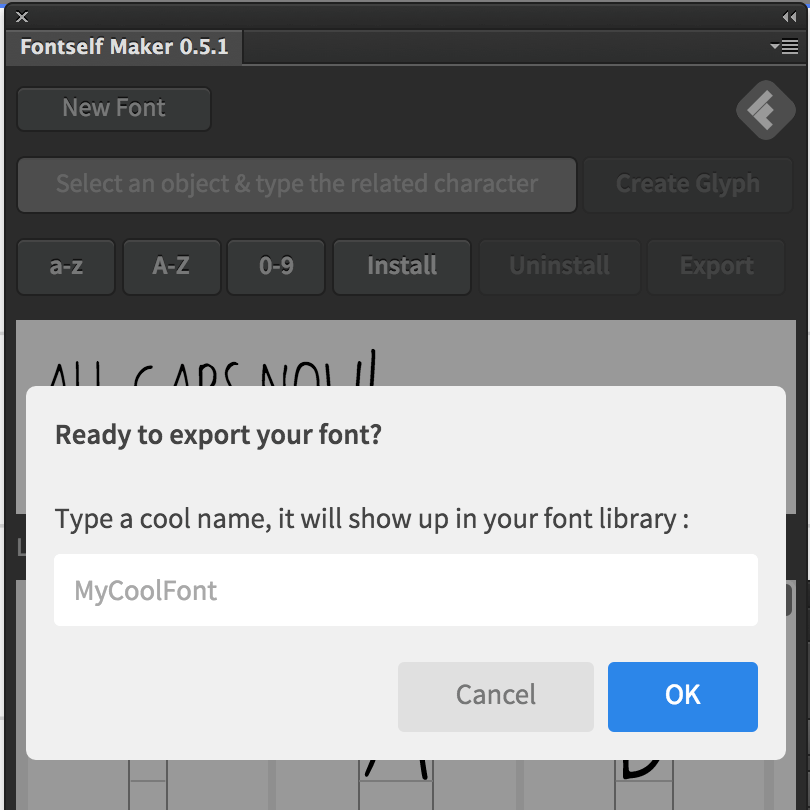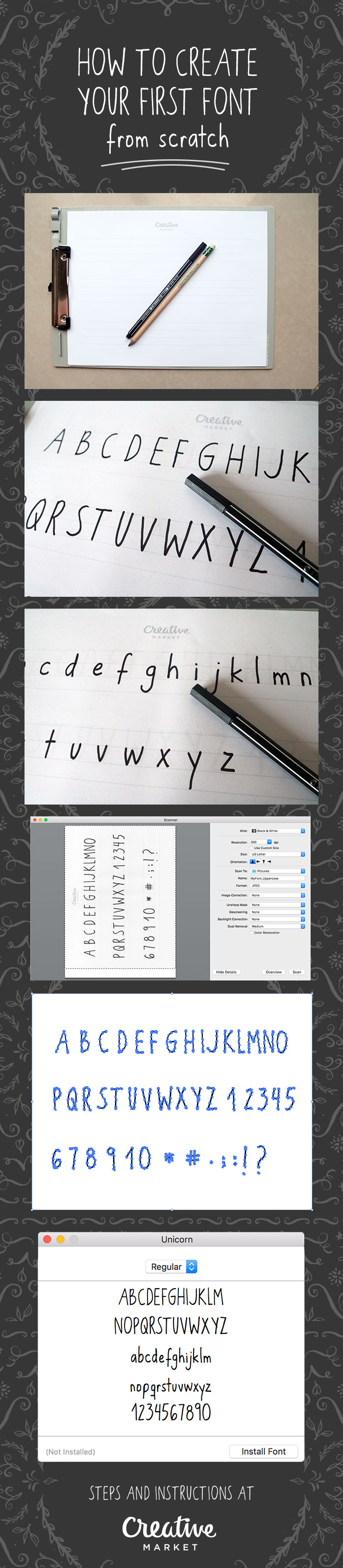
How to Create Your First Font from Scratch: A Step by Step Guide
I have deep admiration for font designers. Their attention to detail, commitment to their craft, and discipline are truly unique. That’s why every time I hear there’s a tool that can turn my handwriting into a font I run to try it. There’s a certain magic to the act of turning your squiggly letters (I know mine are!) into digital fonts. However, as exciting as the whole process is, I know it can be daunting. Throughout this article, I’ll show you how to use Fontself – a simple Illustrator plugin – to go from hand drawn letters to an OpenType font (.OTF) in minutes.
Before I begin, though, I’d like to point out a few things that this article isn’t. This is not about creating a crisp, perfect font with complex ligatures and multiple language support. This is your first font, and I’m here to show you the essential parts of the process so that you can practice your way to perfection – if that’s even what you’re looking for.
How to Create Your First Font
Steps
2. Print the template above. Be mindful of the fact that each line has three horizontal divisions. Start your letters in the middle division and go up or down depending on whether the (lowercase) letter has an ascender (like d) or a descender (like p).
3. Start drawing in your uppercase and lowercase letters. Work your way through the alphabet considering each letter’s width – use a ruler and pencil marks if you want to keep that size constant.
4. Add numbers from 0-9 and any special characters that you’ll need in order to create sentences with this font: periods, commas, semicolons, exclamation marks, and question marks. If you feel confident about your pulse and letters, feel free to skip the pencil sketch. If you’d like to be able to erase any mistakes and polish your letters before scanning, draw these in with a pencil first. When you’re happy with the letters, trace them with the black marker and erase the pencil marks.
5. [Optional] If you’ll use the font in a different language like French or Spanish, feel free to draw vowels with accents (e.g. á, é, í).
6. Scan these pieces of paper using at least 300dpi and (ideally) a high-contrast setting. I’m sharing my scanner settings below in case they’re useful.
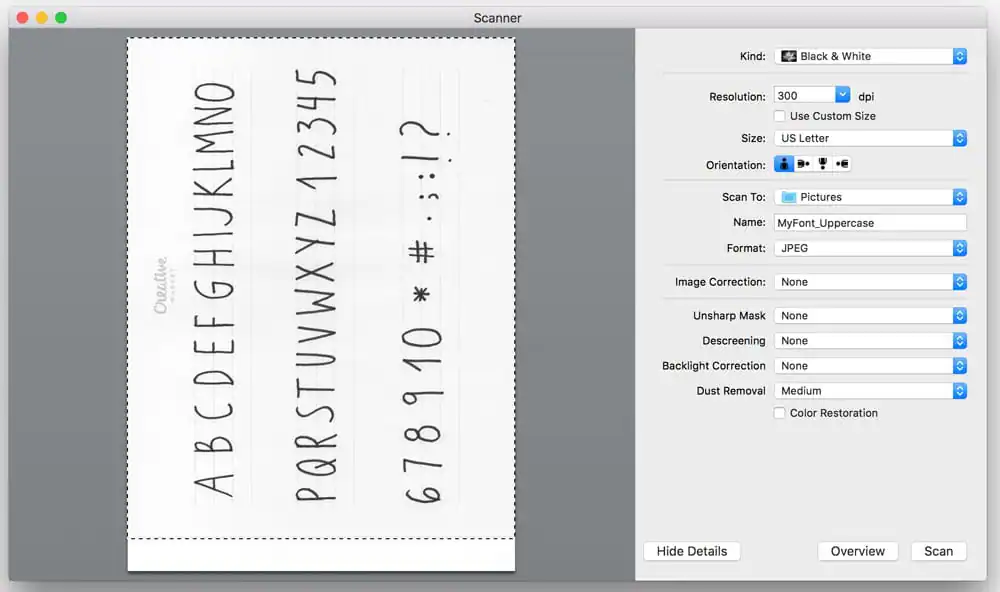
7. Open up your image file in Illustrator and make sure everything looks OK. Rotate the image if necessary.
8. Live trace the image using a high-contrast setting like Black and White Logo. The Live Trace action will instantly remove the grey lines in your printout, and should leave you with vectorized letters. There’s also a an option called “Ignore White” that you can check off to make sure that the white background turns into a transparency during live tracing. As a shortcut, you can use Cmd + Shift + D to quickly switch to a transparent background as you work.
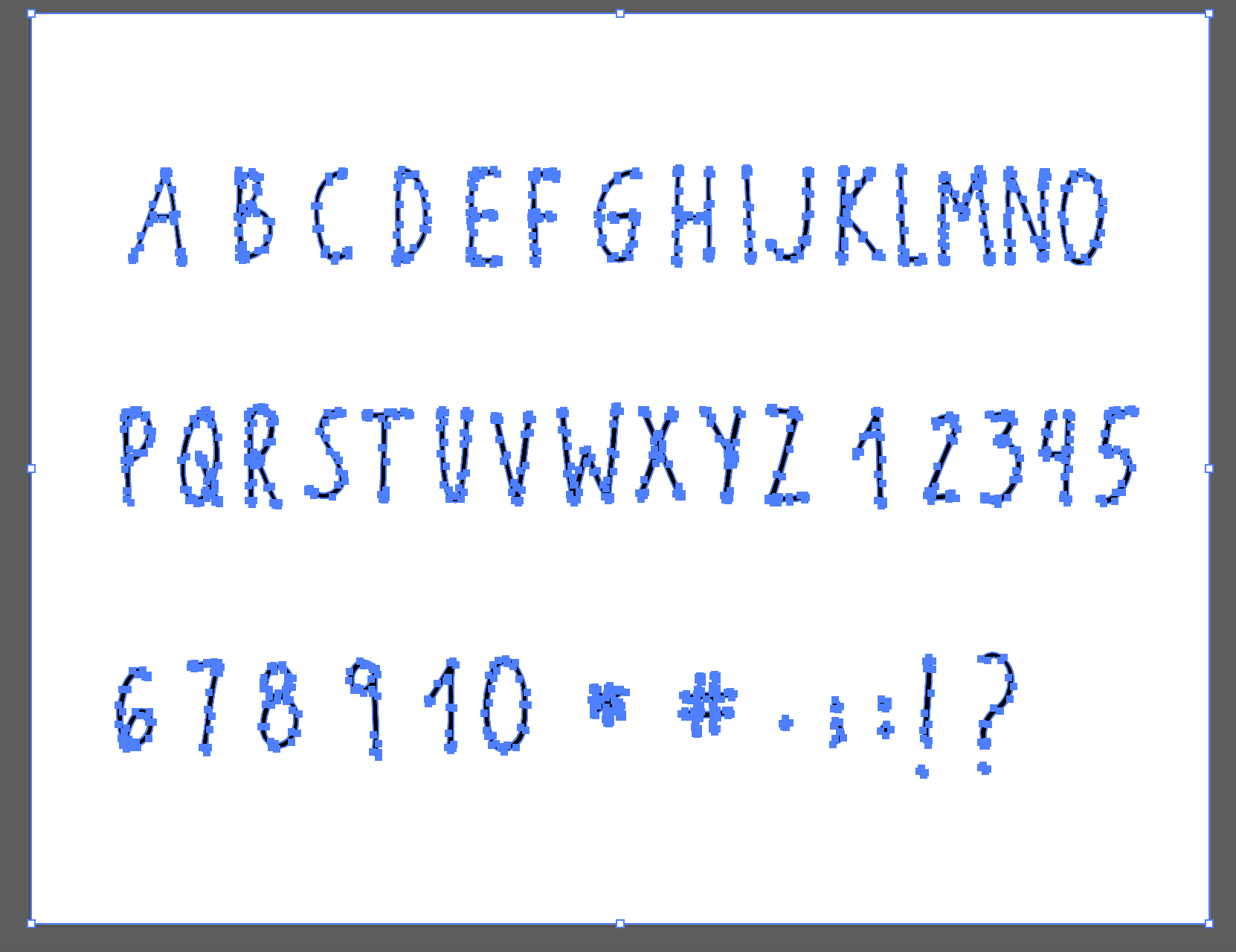
9. Clean up any letters that look odd, too large or too small. Since they are now vector shapes, you can use the Direct Selection (white arrow) and Pen tools to fix any details. My number 6, for example, looked terrible.
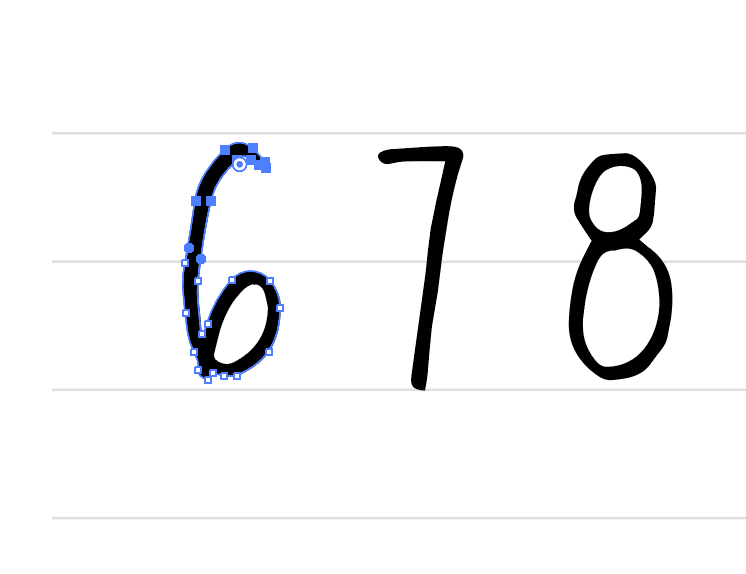
10. When they look OK to you, open Window → Extensions → Fontself Maker.
11. Selecting the whole shape at a time, type the letter/symbol you want Fontself to identify (a, b, c) and hit enter.
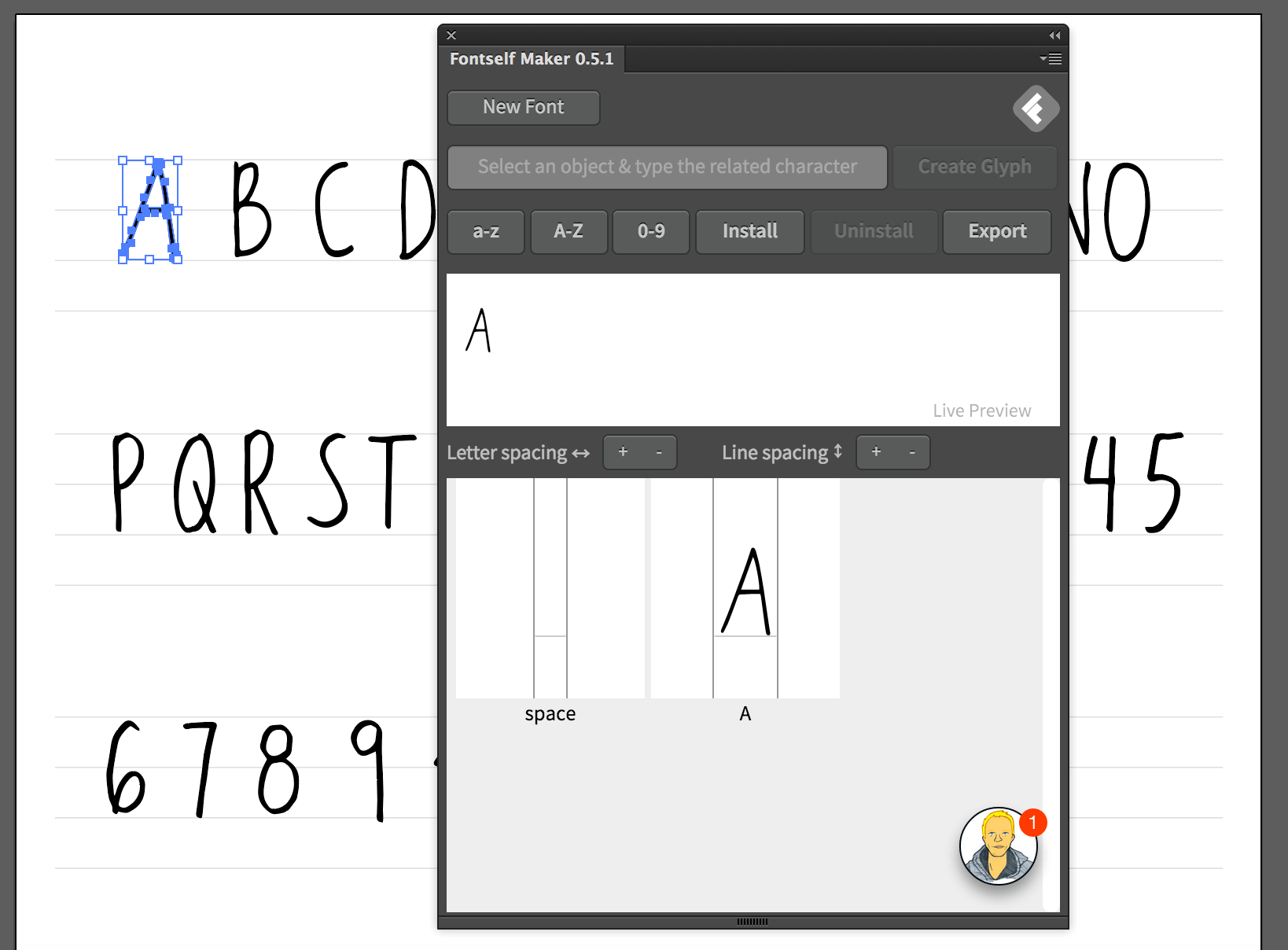
12. You can move faster if your 0-9 numbers are next to each other. Select them all and click on the “0-9” button in the Fontself pane. The same action is possible for a-z and A-Z. In my experience, it’s easier to go letter by letter the first time around, and that’s exactly what I’m doing here. Alternatively, the newest version of Fontself allows you to drag objects (shapes) directly into the extension. Check out this quick video showing how to go about it:
13. As you move through these letters, notice how Fontself is placing them in relation to each other. Should you lower your q to fit their guidelines? Should you reduce spacing between the letters because your y looks too far apart from your h? Just click and drag the guides within the Fontself pane.
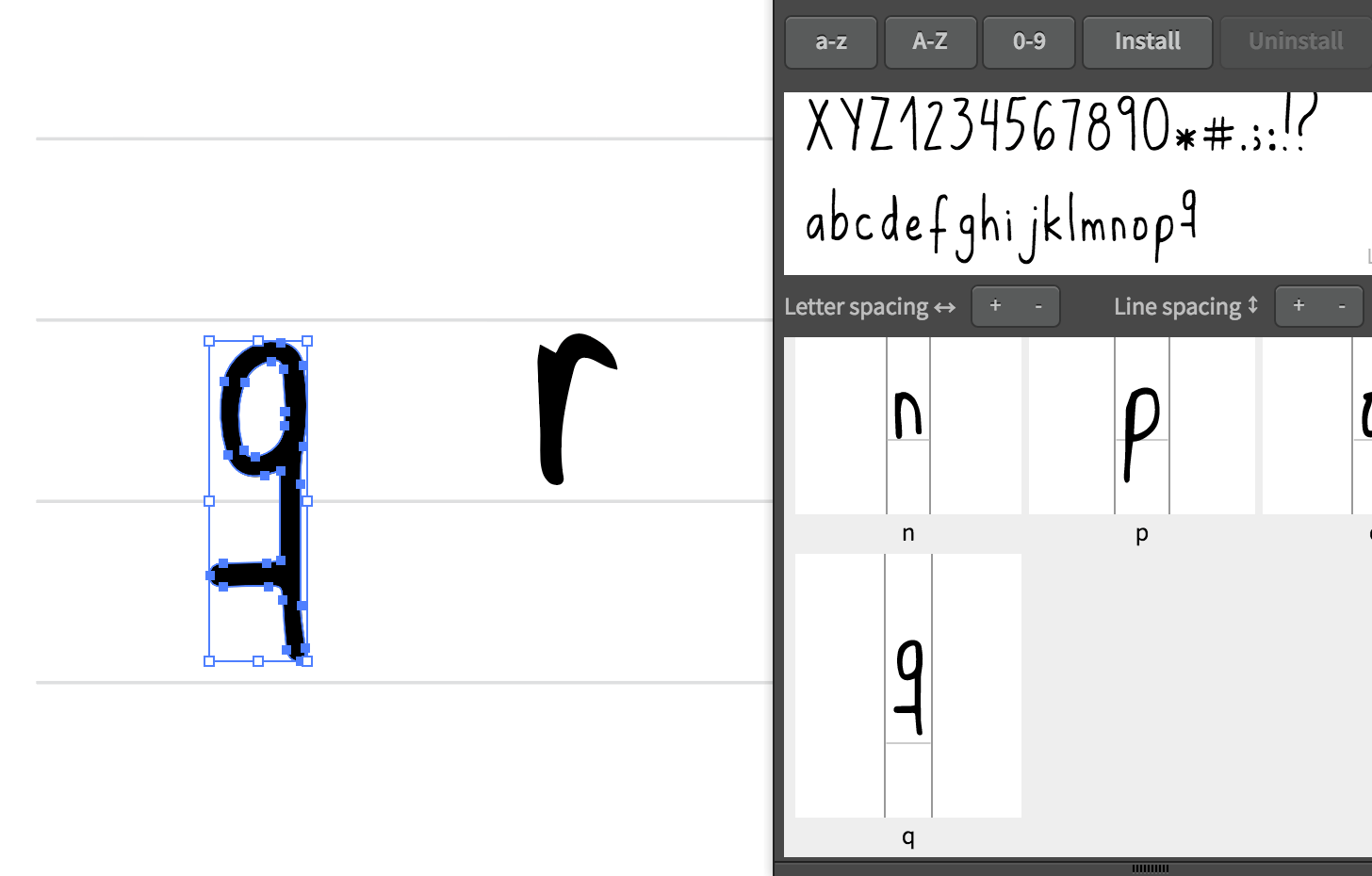
14. Check out the live preview, where letters are lined up alphabetically. Alternatively, write your own words and phrases to see how a real sentence might look like. Fix any minor details.